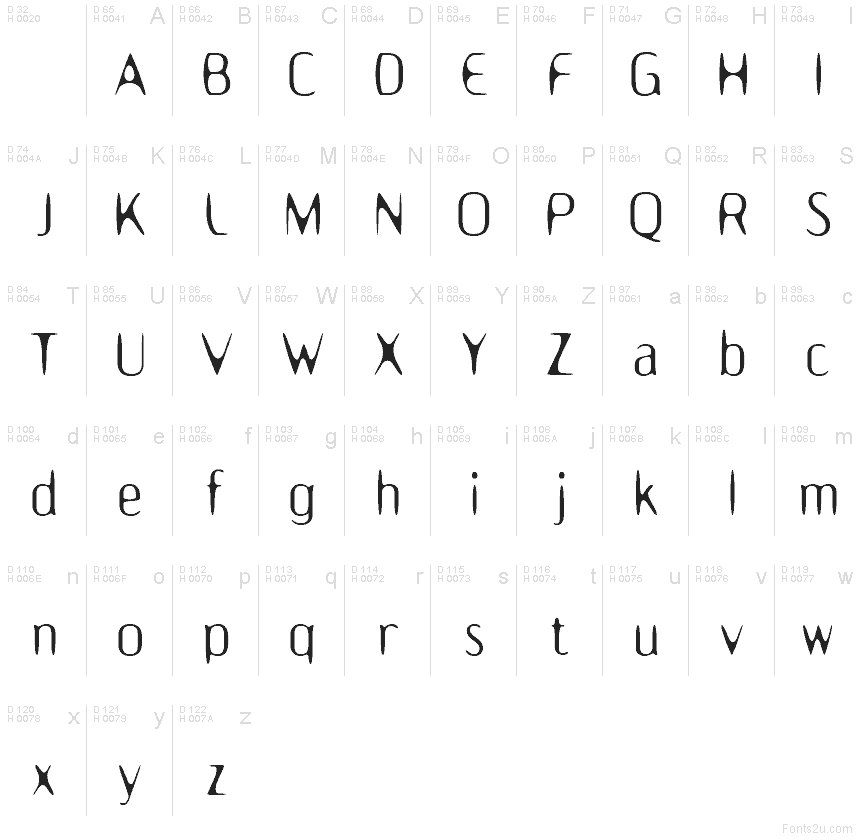
CSAnzeliaDrawn-Regular Demo
CS Anzelia Drawn font by Craft Supply Co. is a free techno display font with a classical elegance portrayed through an artistic flair. Its unique character shapes come together in sophisticated style to ensure the readability of the text, but also its beautiful appearance. The font’s vintage influence provides it with a contemporary appeal.